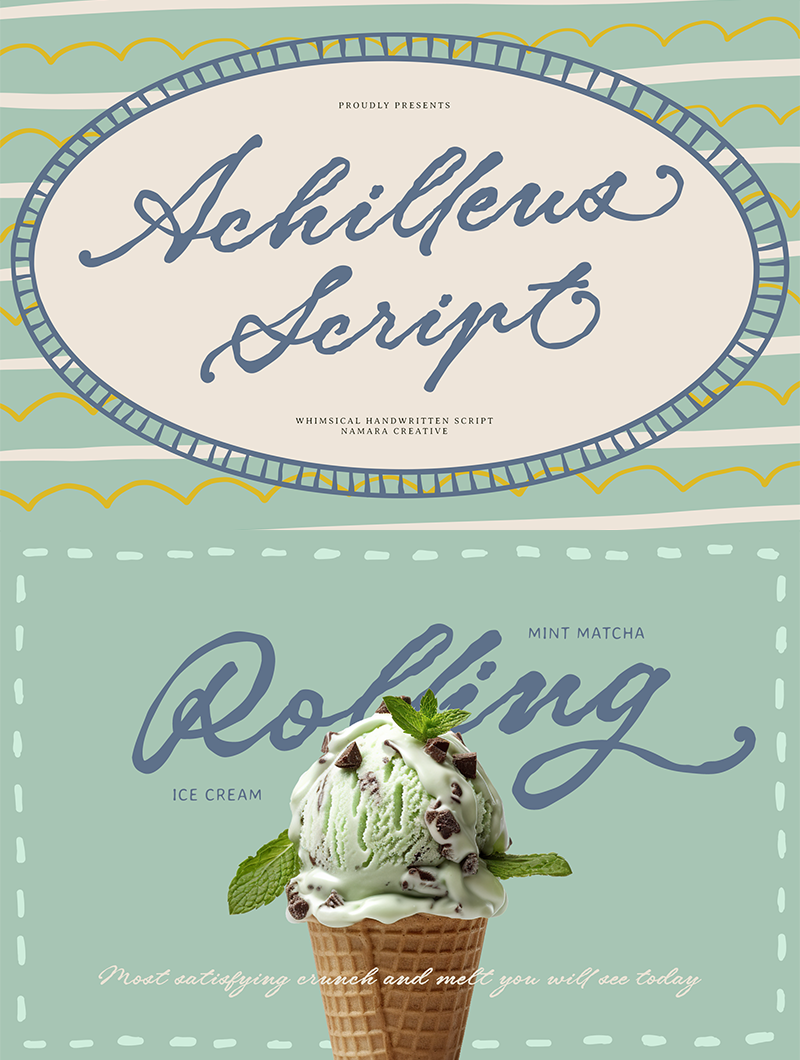
Achilleus Script
Namara Creative · Regular · Achilleus Script
A dreamy, whimsical handwritten script font that brings warmth, personality, and effortless elegance to every design it touches. NOTE : - THIS FONT IS FOR PERSONAL USE ONLY, NO COMMERCIAL USE ALLOWED! - To use this font, please purchase license here https://onedsgn.com/product/achilleus-script-whimsical-handwritten/ - Please note that using this font for any commercial activity before purchasing the proper license will result in a 5x charge for the Corporate License.